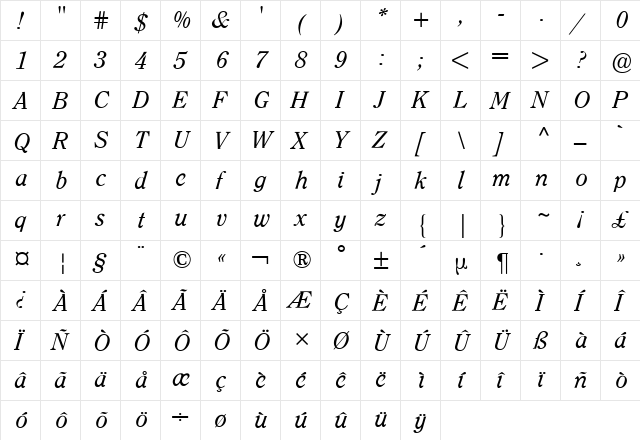
Clearface ITC BQ Italic
Design Context for Clearface ITC BQ Typeface
Clearface ITC BQ takes a measured approach to typography — its balanced proportions and neutral character make it a reliable workhorse for both digital and print work. Its italic angle brings a sense of urgency and motion to the letterforms.
Pro Tip: Use Clearface ITC BQ for emphasis, pull quotes, and subheadings where its slanted energy can add rhythm to the layout.